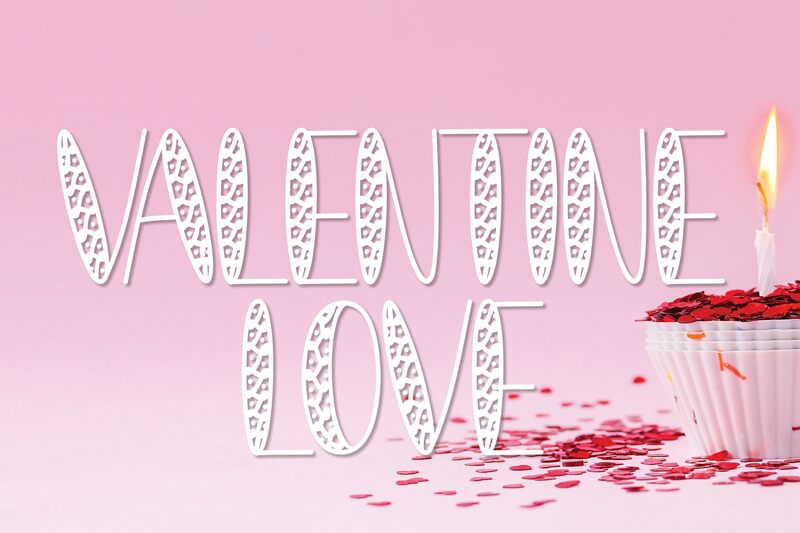
VALENTINE LOVE
Valentine Love, designed by Scratchones, is a decorative display font that radiates charm and romance with its bold style. Its enchanting design captures the whimsy of love letters and the warmth of heartfelt notes. The typeface boasts playful curves and a robust presence that makes it perfect for projects requiring a touch of affection.
Ideal for themed graphics, Valentine's Day cards, wedding invitations, or any design celebrating love and joy, Valentine Love's alluring aesthetic ensures your message is delivered with an embrace of visual delight. Its captivating style guarantees to leave an impression as endearing as a handwritten poem on a lover's heart.